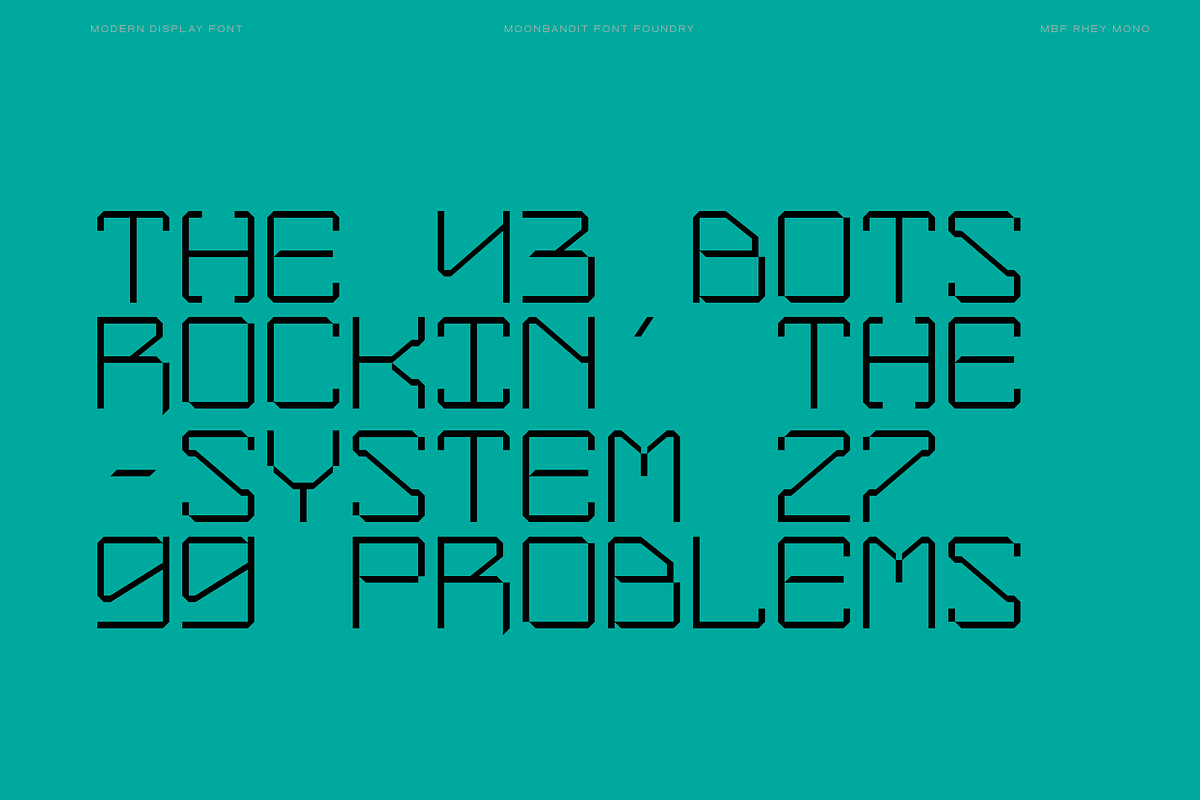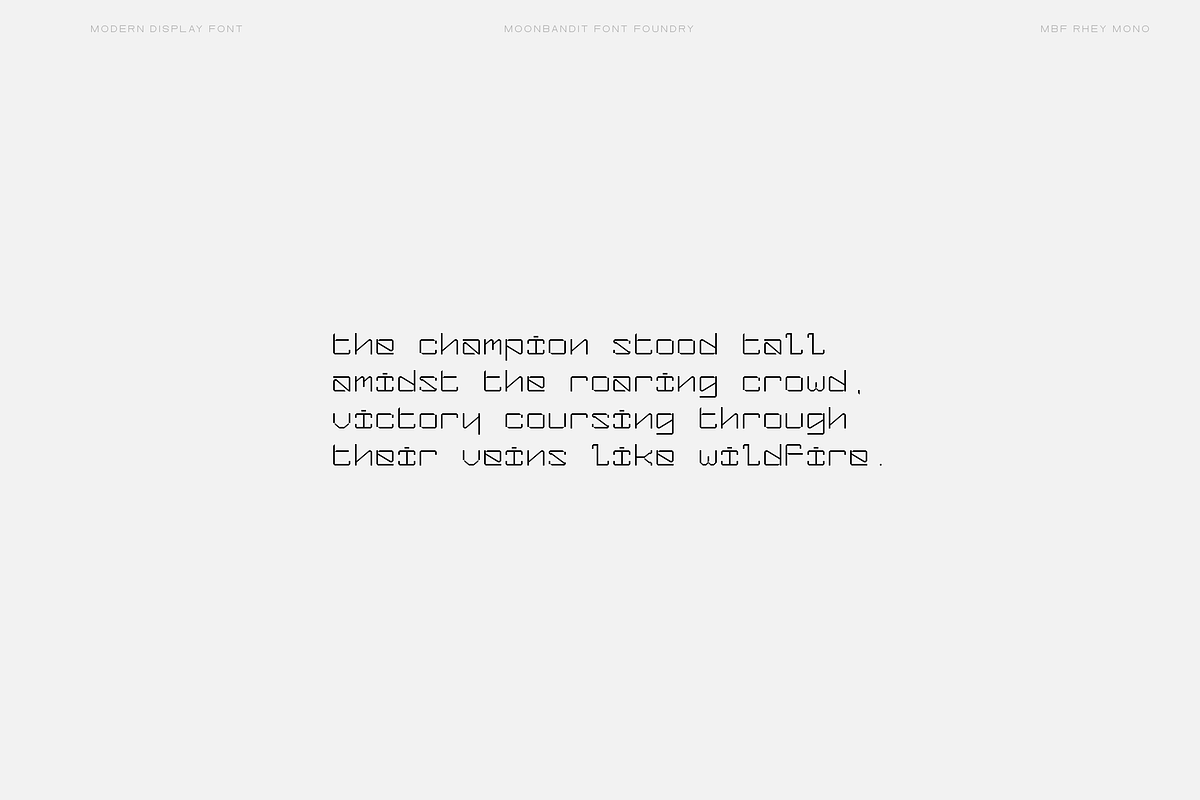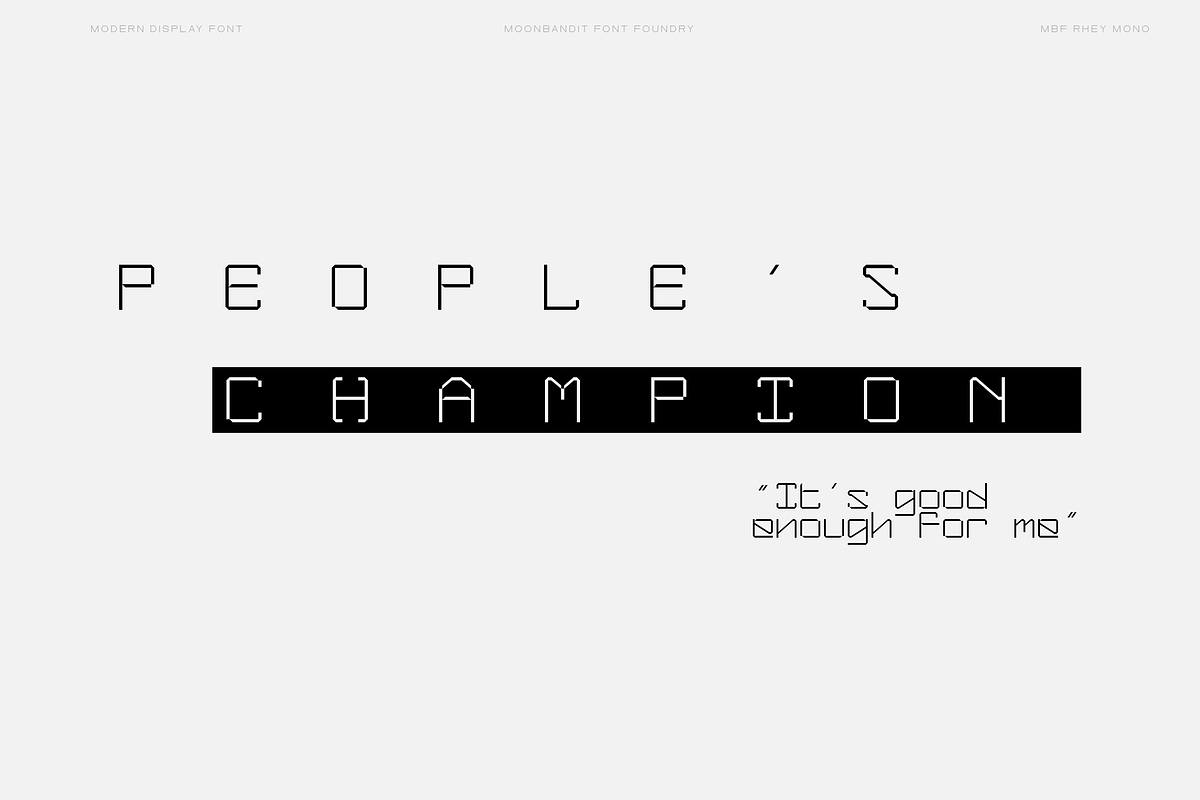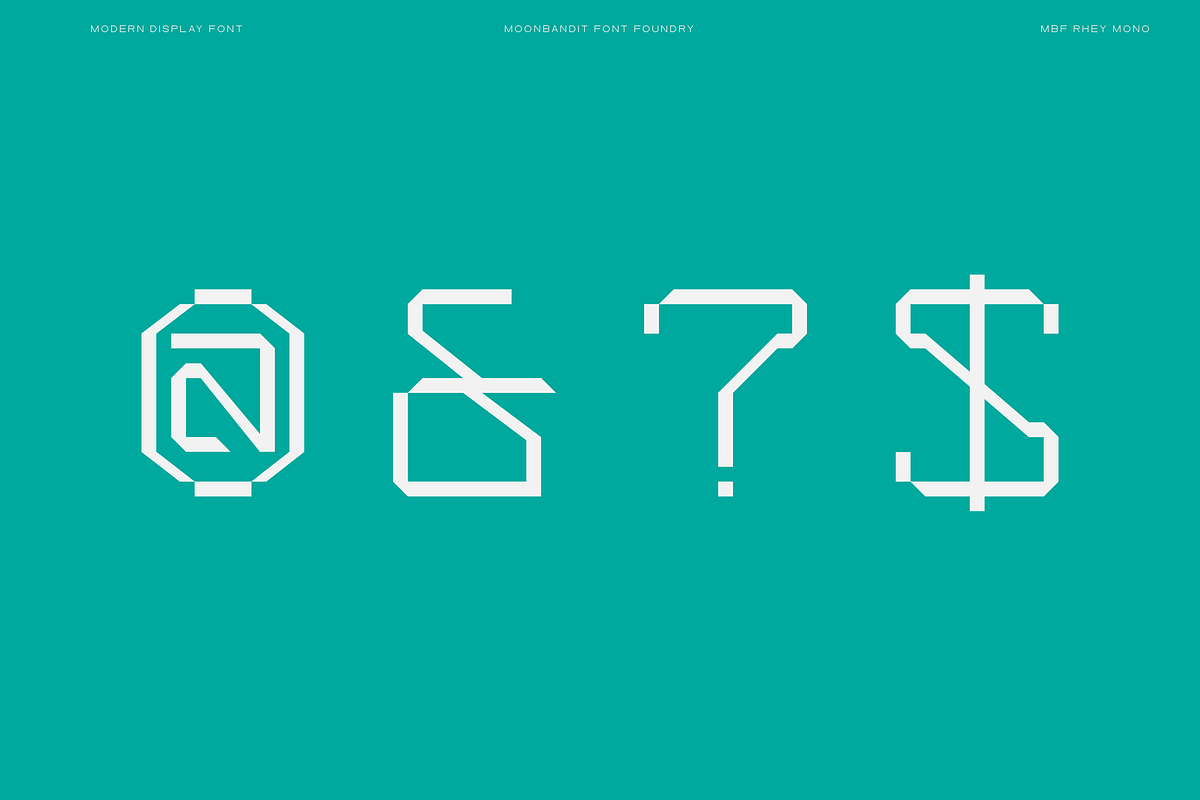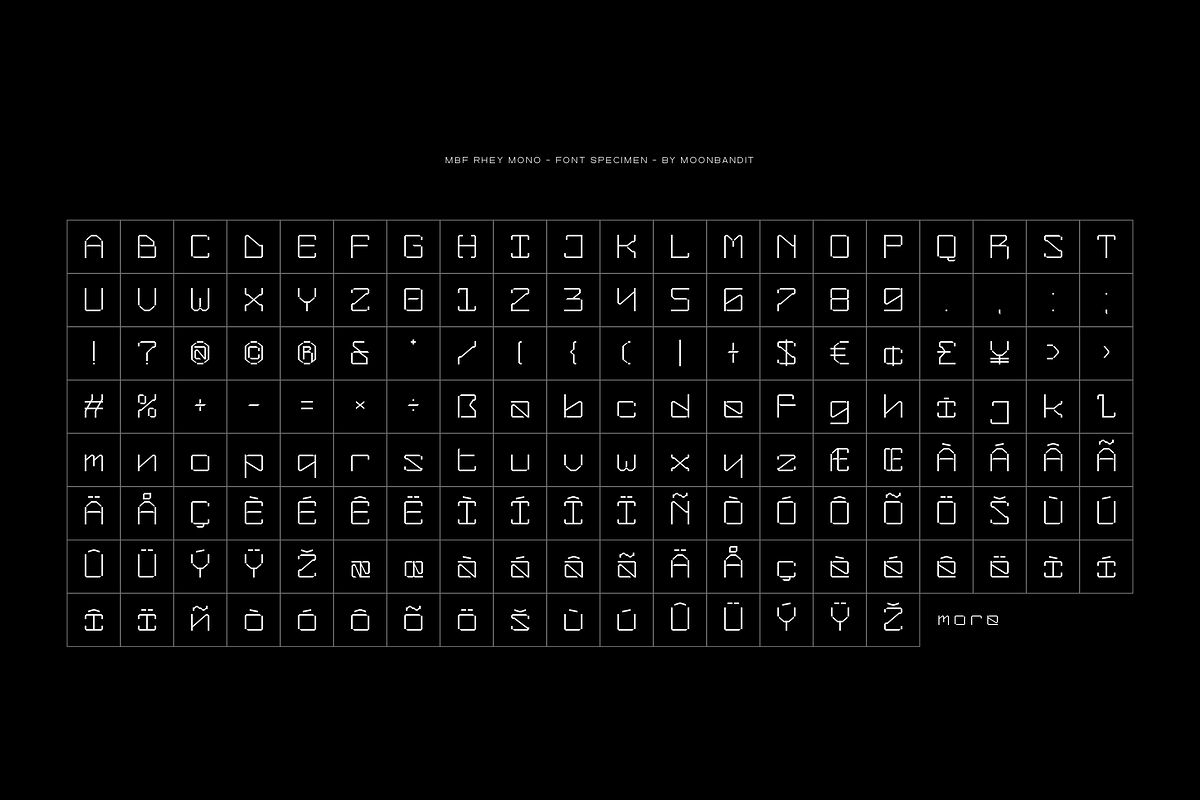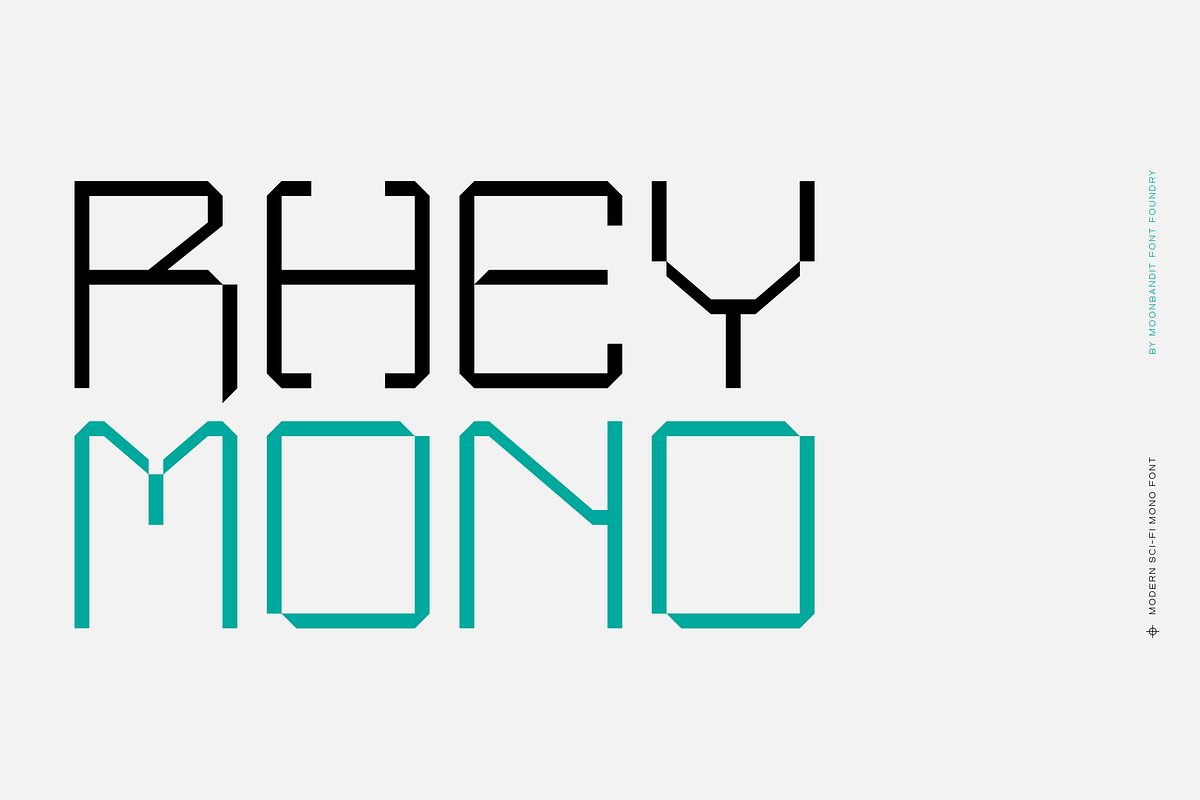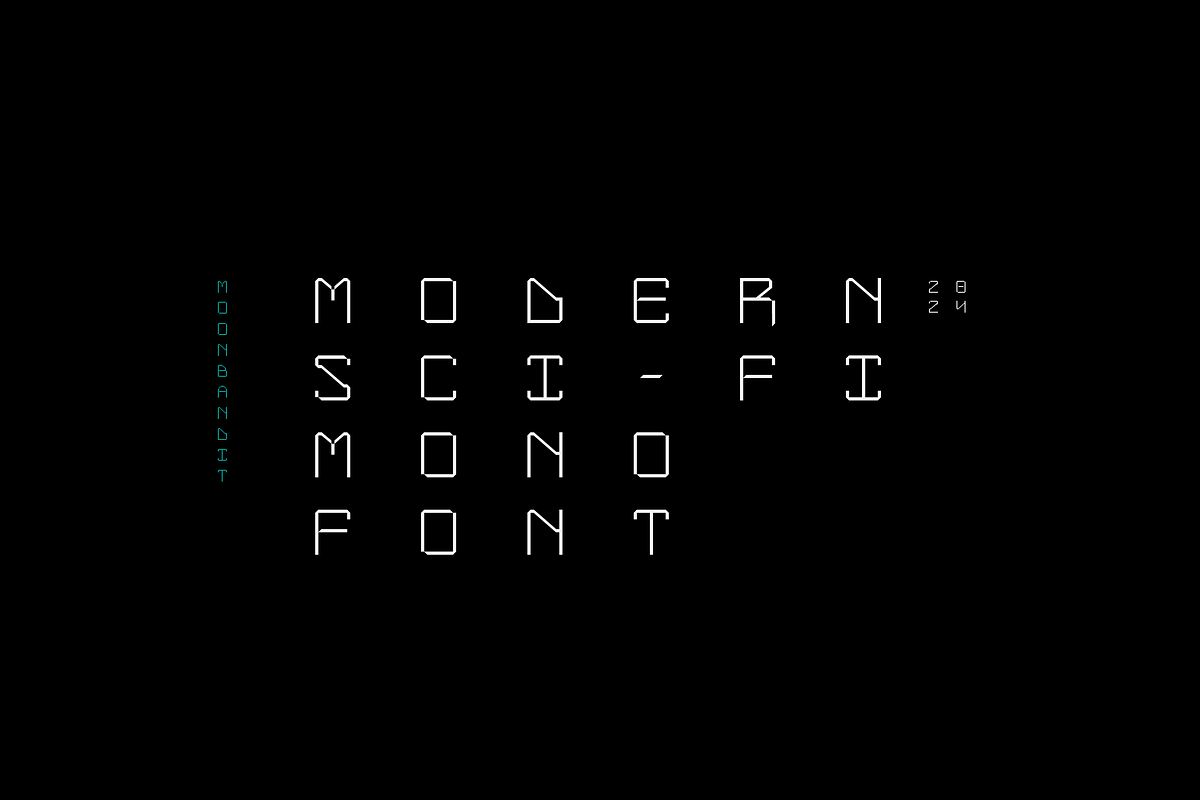
MBF Rhey Mono - Sci-fi Monospace
Featuring distinctive square shapes and dynamic diagonal lines, MBF Rhey Mono injects excitement into your projects. Whether you’re coding, designing posters, or creating digital art, this font adds a touch of boldness and flair. MBF Rhey Mono comes in OTF, TTF and WOFF format